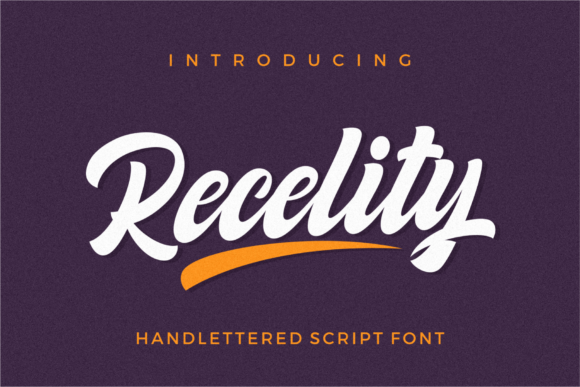
Journey into the realm of Recelity, a captivating handwritten font family that ignites creativity and leaves an unforgettable impression. This calligraphic masterpiece brings a touch of elegance and sophistication to your digital designs, effortlessly blending classic charm with a modern twist.
Recelity Script, the heart of this font family, is a dance of flowing lines and graceful curves. Its organic strokes possess a human touch that adds warmth and personality to your projects. With its diverse character set, including uppercase and lowercase letters, numerals, and an array of punctuation marks, Recelity Script empowers you to craft visually stunning headlines, logos, branding materials, and social media posts.
Unleash your artistic flair with Recelity Sans, a complementary font that exudes a clean and minimalist aesthetic. Its sharp lines and geometric forms provide a striking contrast to the fluidity of Recelity Script. Utilize Recelity Sans to create captivating subheadings, body text, and UI elements that demand attention. Together, these fonts form a harmonious duo, enabling you to craft cohesive and visually appealing designs.
With Recelity, the possibilities are endless. Its versatility extends from branding and marketing projects to social media posts and digital invitations. Whether you're a seasoned designer or just starting your creative journey, Recelity empowers you to elevate your designs and leave a lasting impact.
Join the creative revolution and embrace Recelity, the font family that captures the essence of timeless elegance while embracing modern aesthetics. Let your words dance across the digital canvas with grace and sophistication, leaving an indelible mark on the hearts of your audience. Recelity awaits you to unleash your creative potential and embark on a journey of visual storytelling.